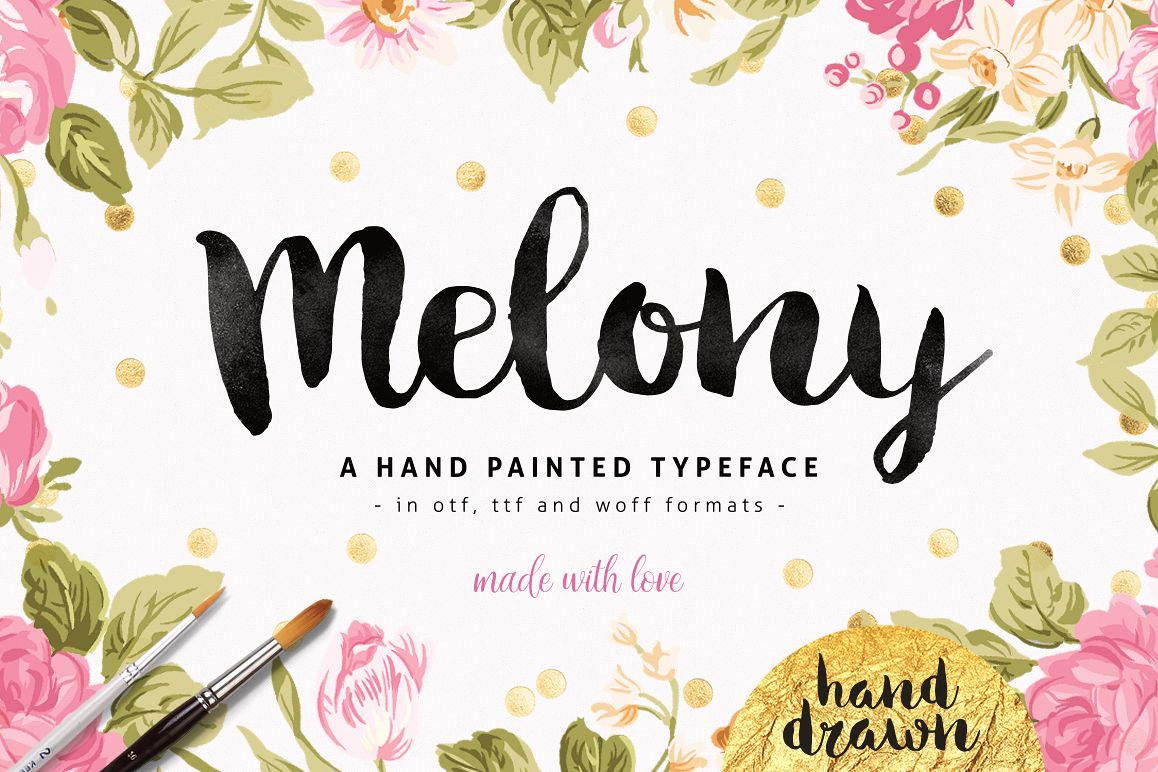
Melony Script, Hand Drawn Brush Font
Melony
Melony Script - Romantic font for your projects! Hand drawn brush script! ?This handwritten font is perfect for cards, prints, logos, wedding invitations, arrange illustration and decoration. It is beautiful lettering. I made this font for your artwork! It has upper and lower case letters, numbers, special characters, accents and ligatures.You will receive the fonts:Melony.otfMelony.ttfMelony.woffI hope this font help you make beautiful projects! :)